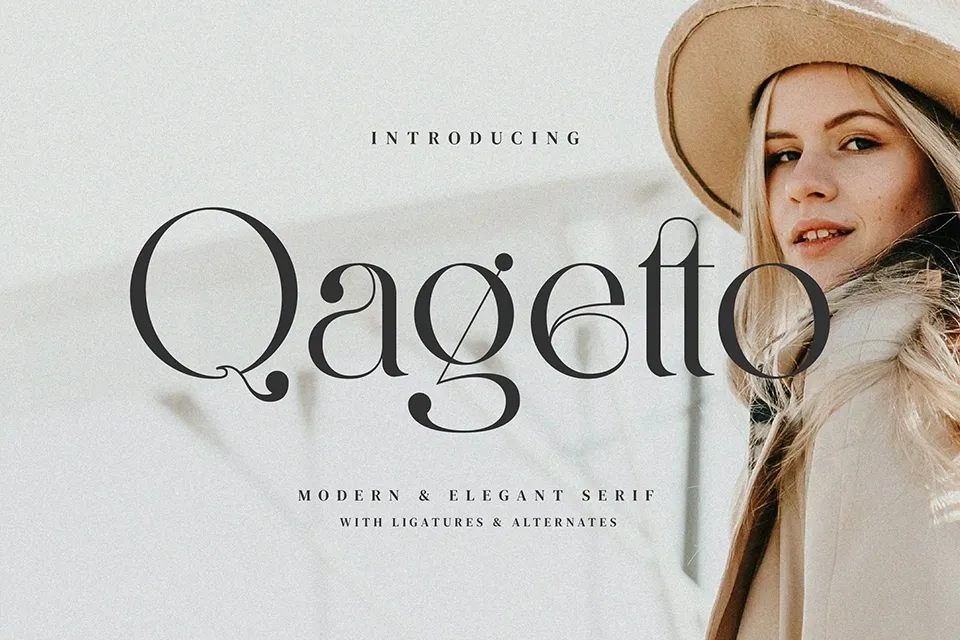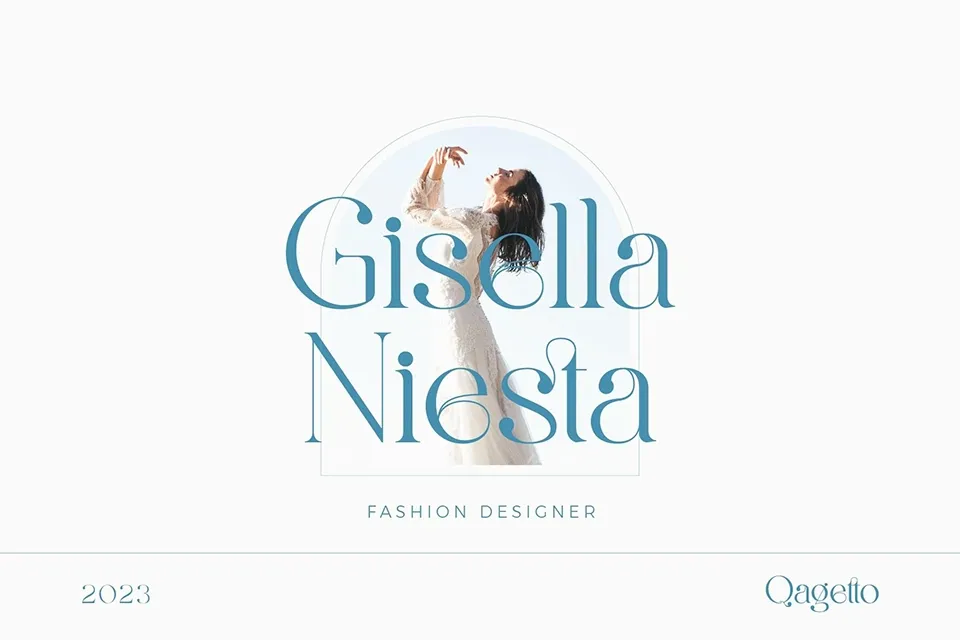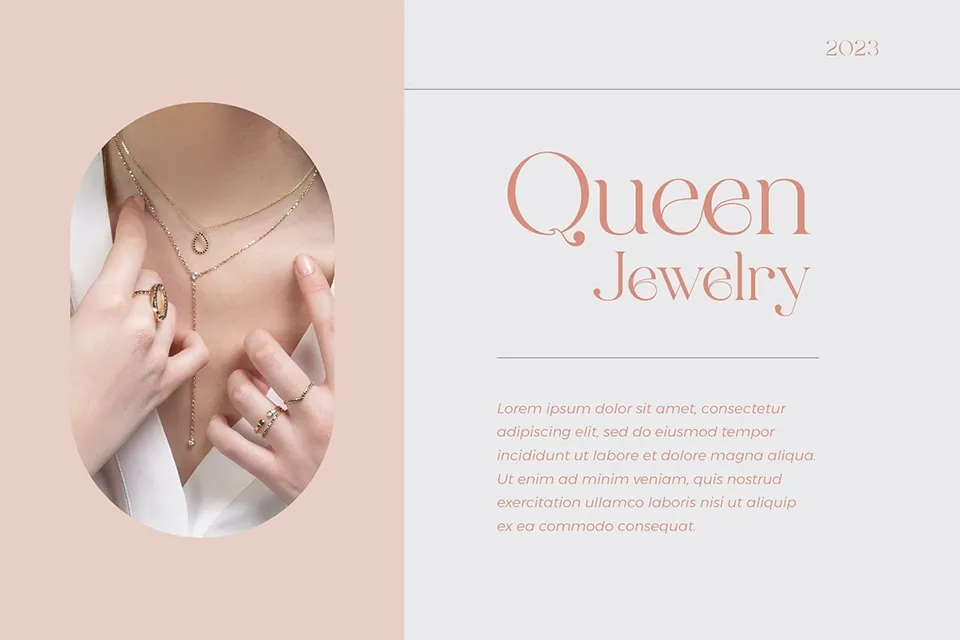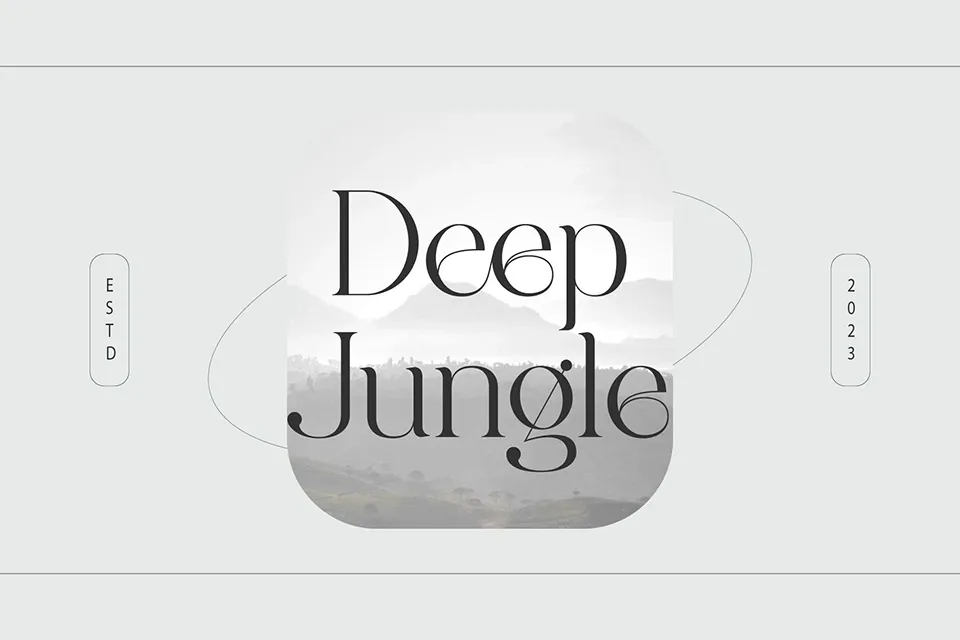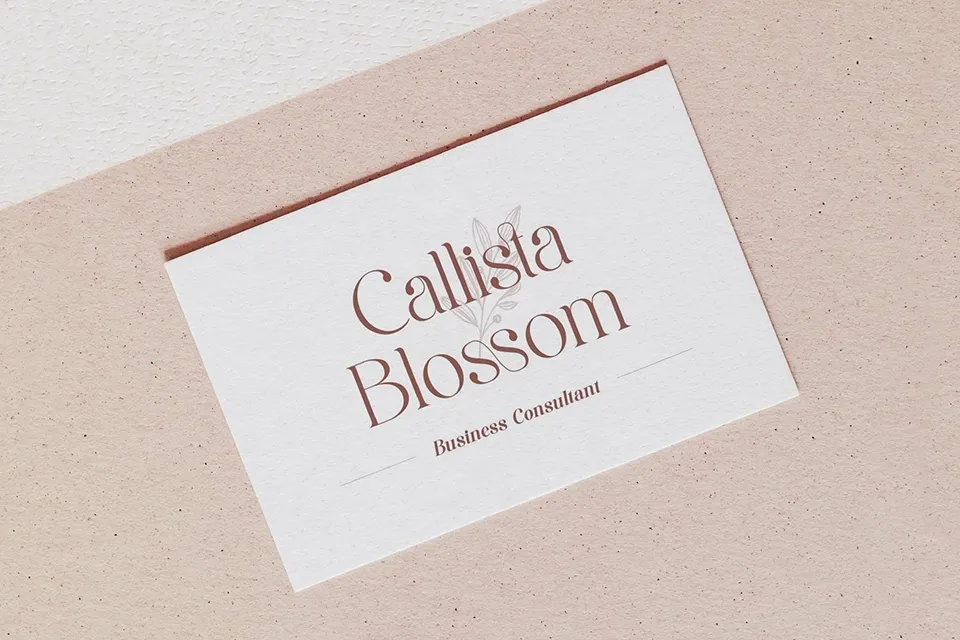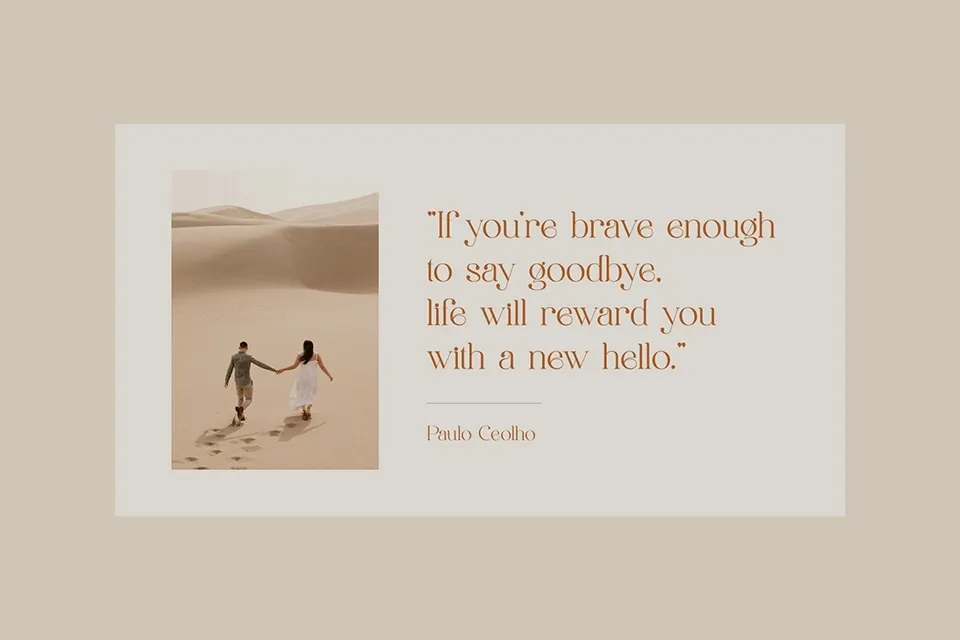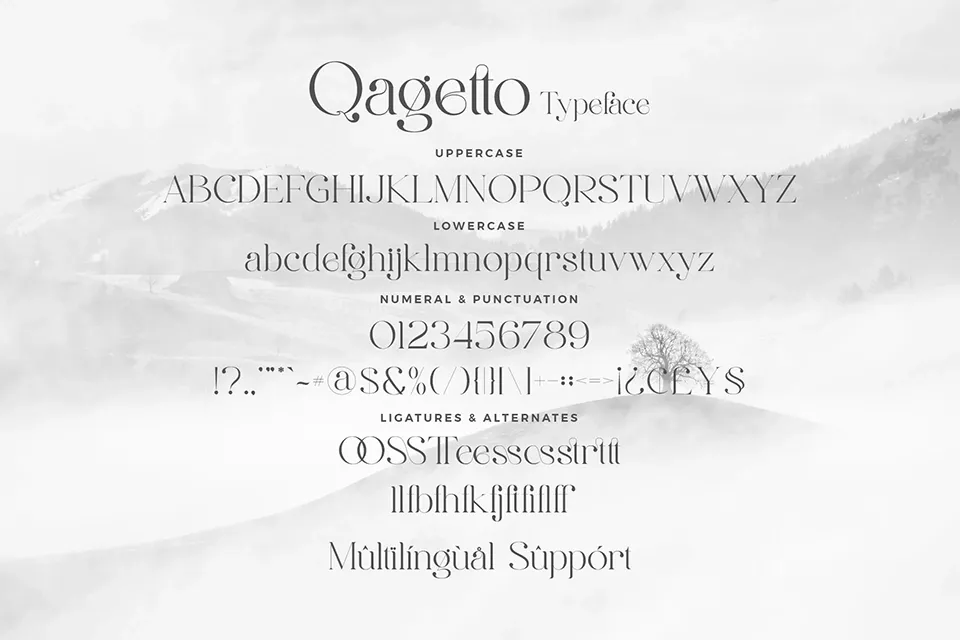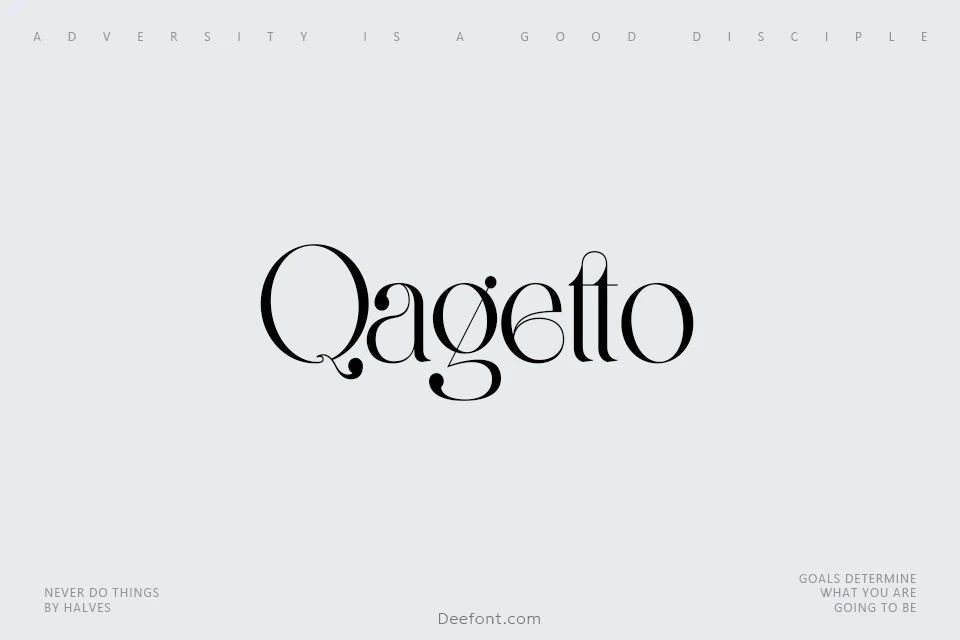
Qagetto Font
Qagetto Font is a modern and elegant serif typeface designed to make a statement with its unique ligatures and stylish alternates. Created by Aqeel_Art, Qagetto features beautifully crafted letterforms that blend sophistication with a contemporary edge. Its distinctive curves and creative ligature connections offer a refined look, making it ideal for branding, logos, invitations, and editorial designs. Qagetto’s versatility ensures it stands out in both digital and print projects, adding a touch of luxury and professionalism. Whether you’re aiming for minimalism or bold elegance, Qagetto elevates your design with its artistic flair and timeless appeal.